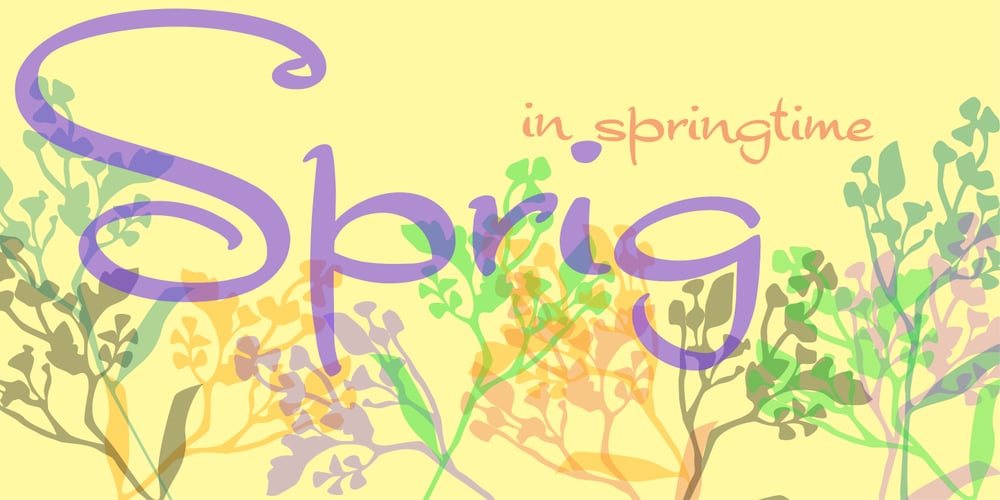
Sprig Font Family was designed by Anton Scholtz and published by Scholtz Fonts. Sprig contains 3 styles and family package options. Sprig is a dynamic font that combines in-your-face chutzpah with contemporary brushstrokes. The character shapes are contained, yet give a feeling of casual, off the cuff ease. In some, subtle ways it pays its respects to the sign painters of the 30s and 40s The font comes in three styles: – Display, with extravagant upper case characters and some opentype features – Text, with more contained upper case characters (suitable for “all caps” use) and some opentype features – Professional, where OpenType features include alternative upper case characters (both the TEXT the DISPLAY caps), as well as a number of ligatures. (For use in applications that access OpenType features.) What this means is that Sprig Pro combines all the characters of Sprig Text and Sprig Display in one font and it also has additional ligatures. Sprig Pro contains over 283 characters, while all styles of Sprig contain a full upper and lower case character set, punctuation, numerals, symbols and accented characters for both all characters that they contain. It has all the accented characters used in the major European languages. The Sprig User Guide provides you with more information on how to use Sprig Pro.